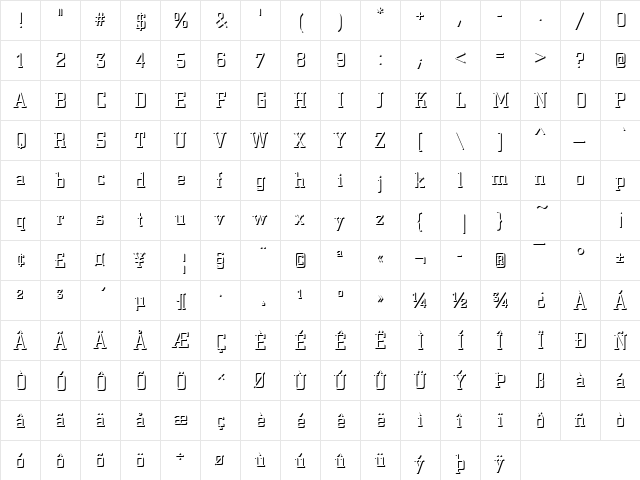
CityOnlShaDLig Regular
Design Context for CityOnlShaDLig Typeface
CityOnlShaDLig is a composed and adaptable typeface that performs quietly and consistently across a wide range of design contexts.